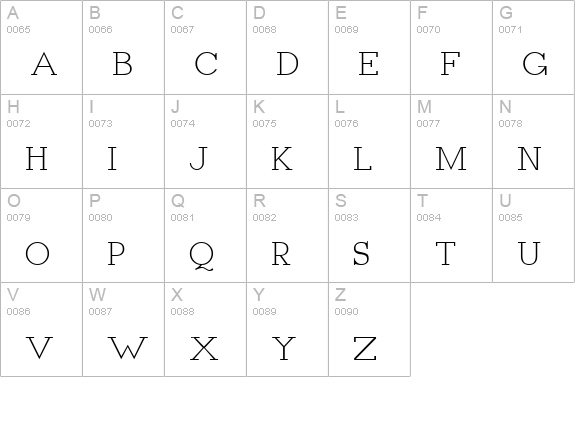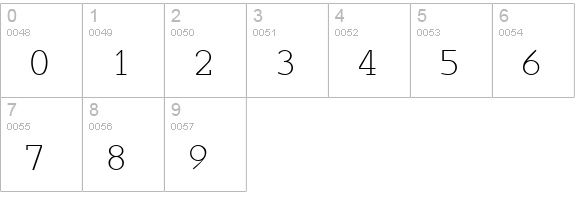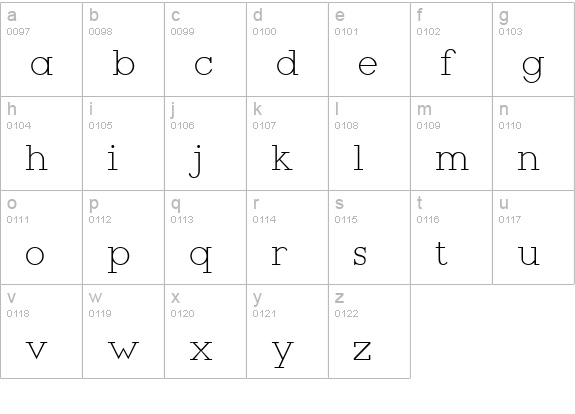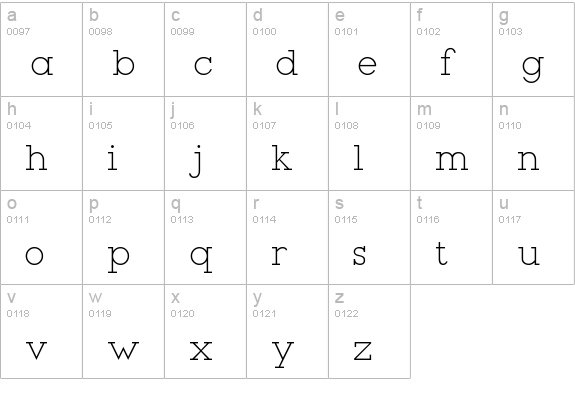
Infant Font Details
Infant font is a whimsical and charming typeface perfect for adding a touch of playfulness to any design project. This delightful font features soft, rounded edges and a friendly appearance that is sure to captivate your audience. Whether you're creating invitations, greeting cards, or branding materials, Infant font will bring a sense of innocence and joy to your work. Best of all, Infant font is available for free download at FontsMarket.com. Simply visit the website to access this lovely typeface and start using it in your projects today. Don't miss out on the opportunity to add a touch of sweetness to your designs with Infant font!